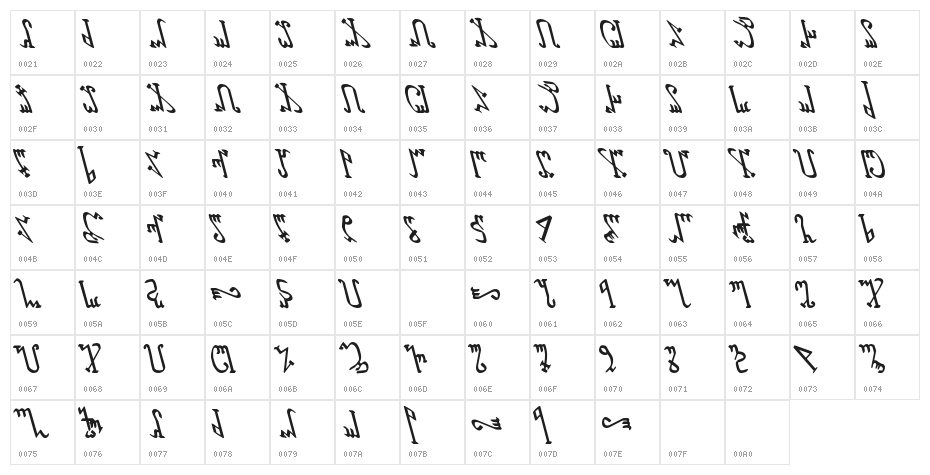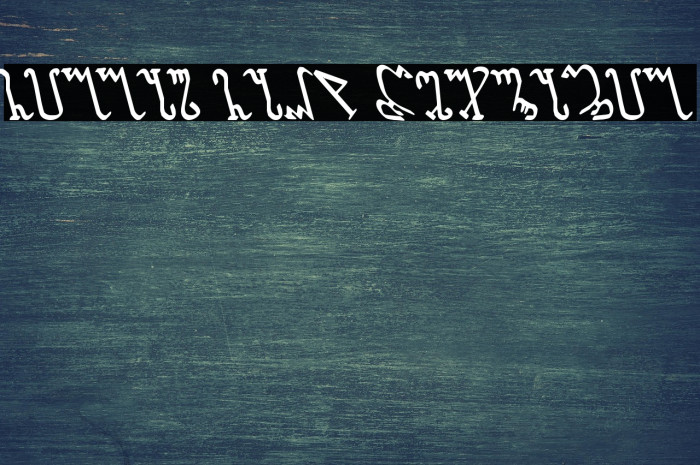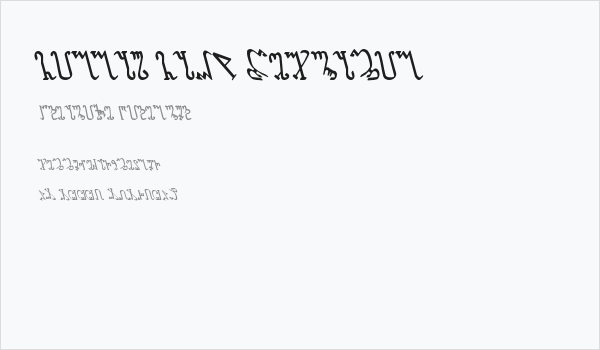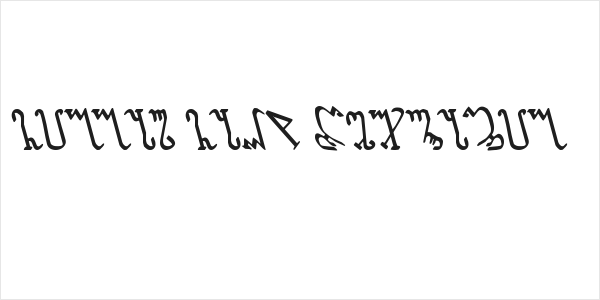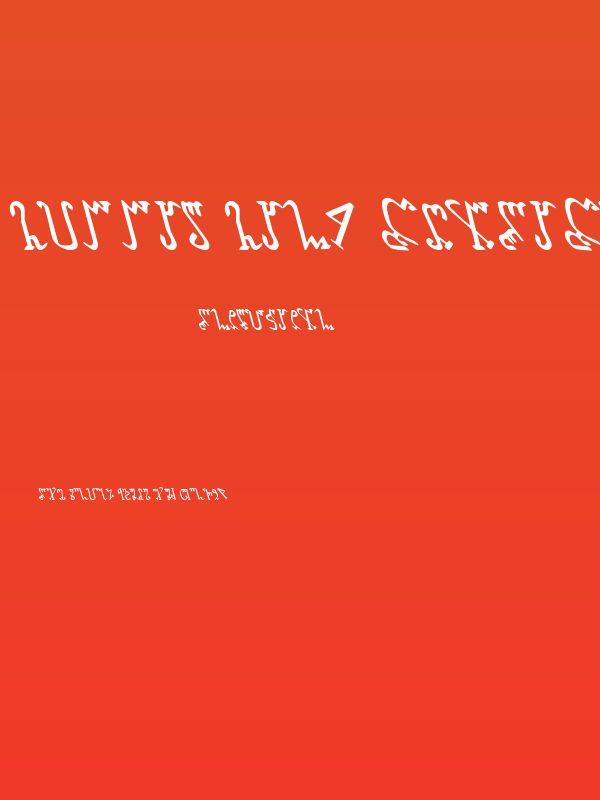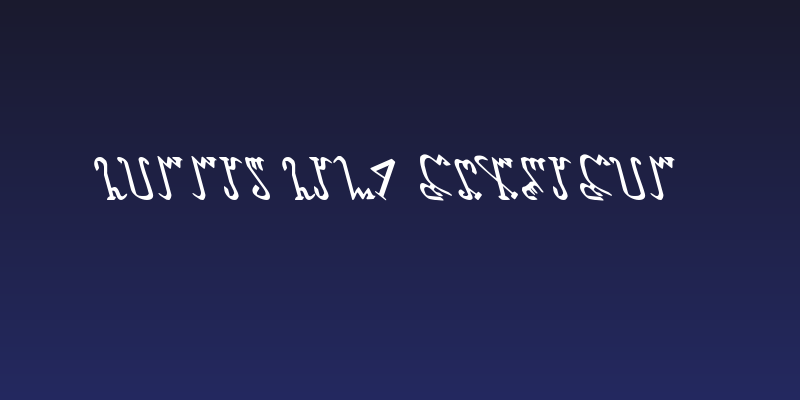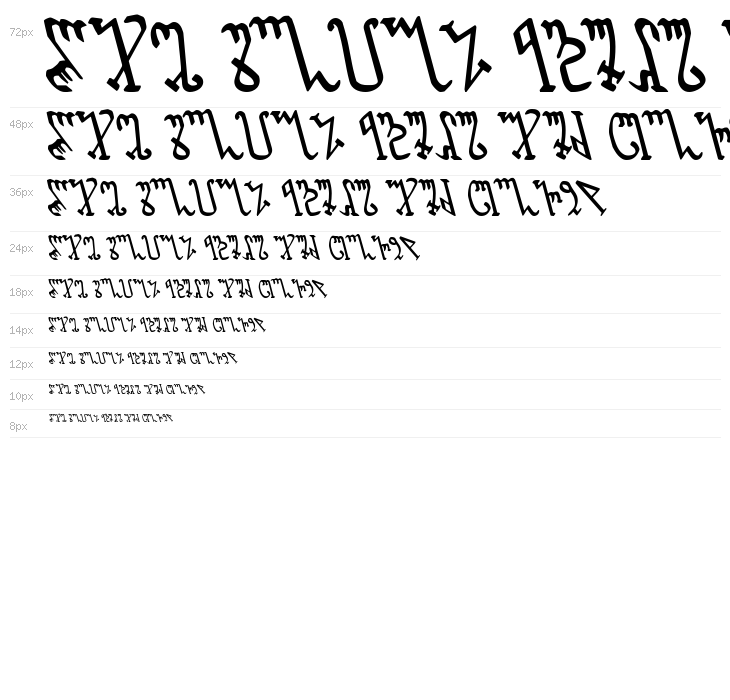
Wiccan Ways Leftalic Font
Wiccan Ways Leftalic Description
This font features a unique, mystical design with angular, sharp edges and a distinct leftward slant, giving it an enigmatic and arcane appearance. The characters are bold and heavily stylized, resembling ancient runes or symbols, which adds to its mysterious allure. The strokes are thick and consistent, providing a strong visual impact. The font's decorative nature makes it suitable for projects that require a touch of fantasy or magic. Its intricate design may challenge readability in smaller sizes, but it excels in creating a captivating and otherworldly atmosphere.
Overall StyleMystical, Enigmatic, Decorative
Proposed ProjectsIdeal for fantasy book covers, mystical event posters, or themed merchandise.